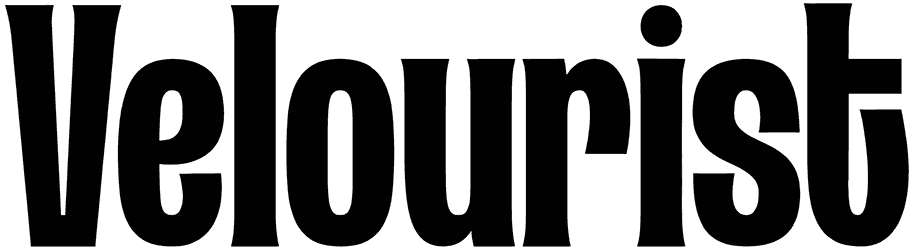
Velourist Font
When you set a retro font, such as the present item, on your layout, the final showcase will convey a vintage and unique vibe. The letters of this sign font can serve as a nice adornment for varied designs, namely a café sign. As a fancy font, the Velourist font is going to add a charming visual to your creative projects.